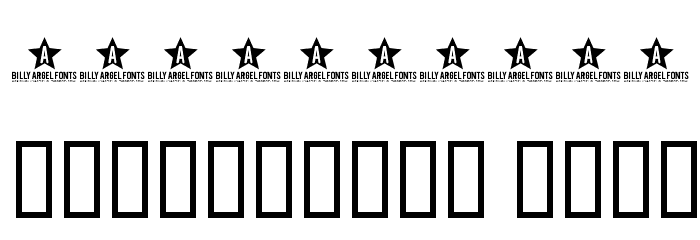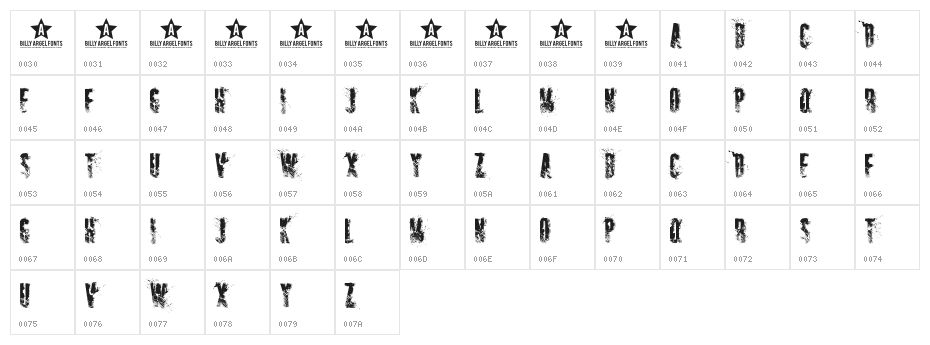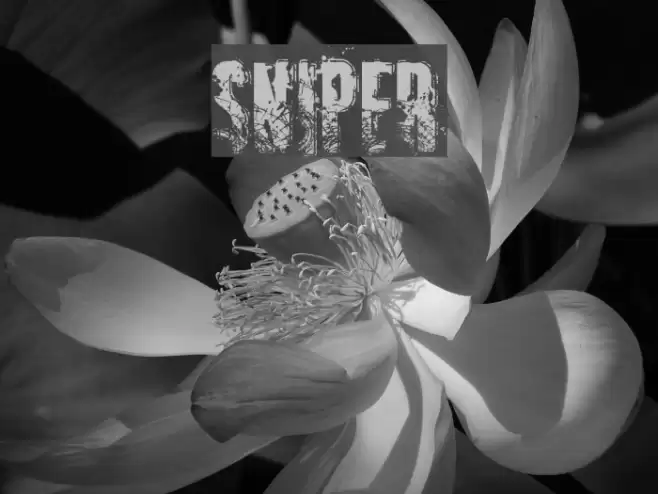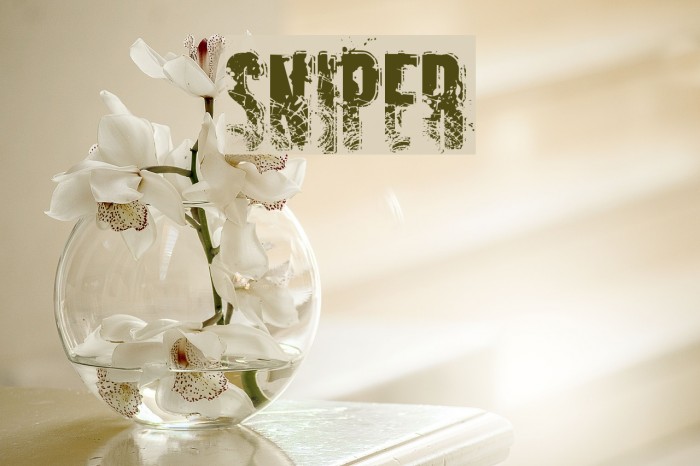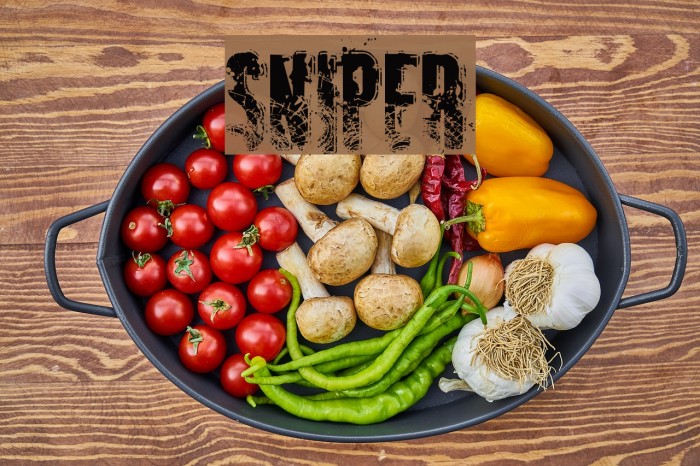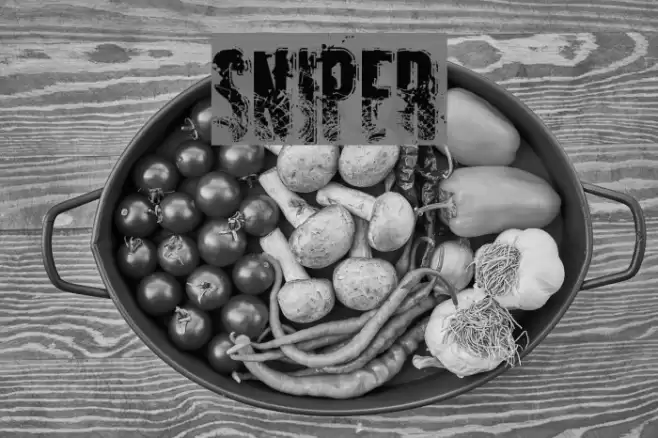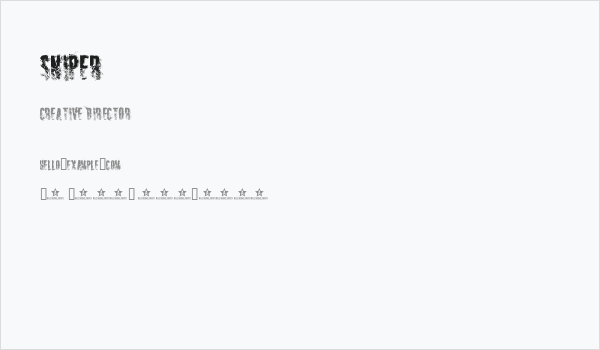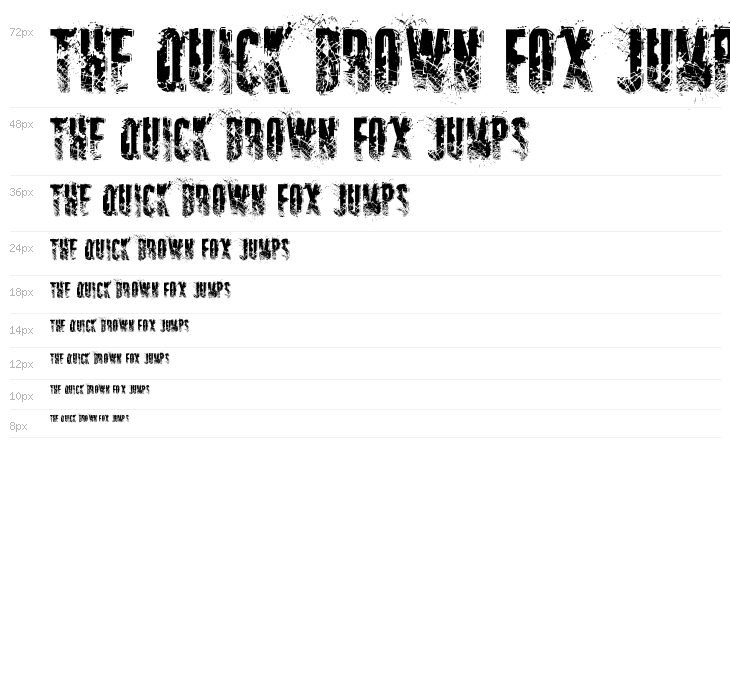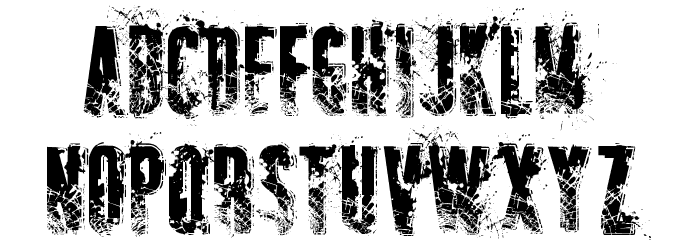
SNIPER Font
SNIPER Description
This font features a bold, distressed style with a grunge texture that gives it a rugged and edgy appearance. The uppercase letters are prominently displayed with a rough, splattered effect that suggests a sense of chaos and energy. The characters are tightly spaced, enhancing the compact and impactful look. This font is ideal for projects that require a strong, rebellious aesthetic, such as music album covers, posters, or branding for extreme sports. Its unique style captures attention and conveys a sense of boldness and intensity.
| Proposed Projects | Ideal for music album covers, posters, extreme sports branding, and rebellious-themed designs. |